Font vs Typeface: Know the Difference
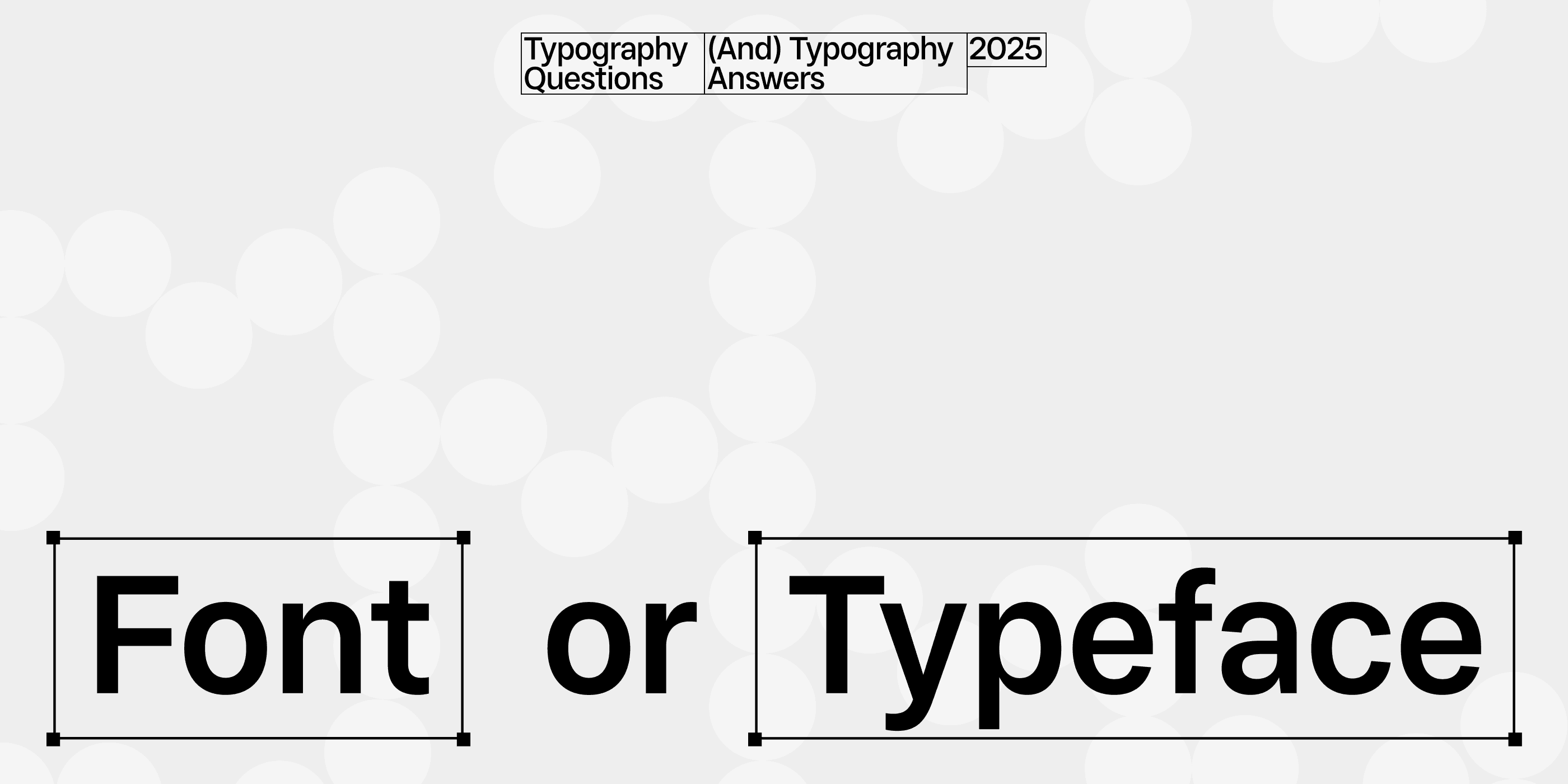
Font vs Typeface
The terms font and typeface are often used interchangeably, even by professionals. In many cases, the confusion doesn’t lead to serious consequences. Most of the time, it’s not a big deal. But in certain situations (think design handoffs, licensing agreements, or technical documentation) knowing the difference between font and typeface matters. In this article we wanted to break down the historical and practical differences between these typographic terms, and explore how they’re used by designers today.
What Is a Typeface?
A typeface is the underlying design behind a set of characters. It establishes a consistent visual language—defining proportions, stroke contrast, shapes, and spacing—that carries across different weights and styles. A single typeface can include many fonts. Each variation in weight, style, or width—like Thin, Medium, Bold, Italic, or Condensed—counts as a separate font, even though they all belong to the same typeface.
Example: In our type collection, Jouter Sans, Oktah Neue, and Rothek are typefaces. A typeface can come in multiple styles and weights, all of which are parts of a unified design system.
Quick tip: think of typeface as the overall design system.
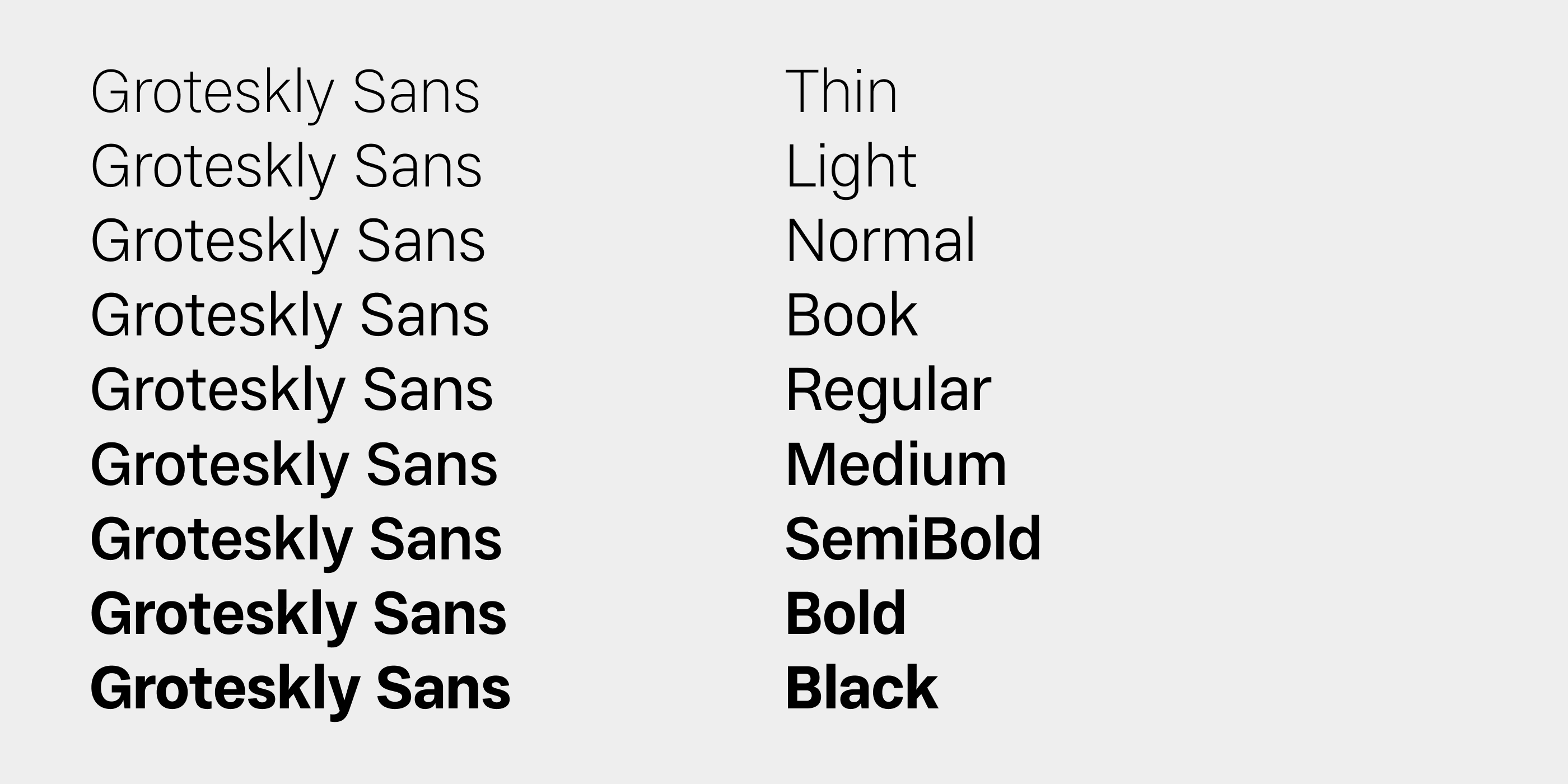
What Is a Font?
A font is a specific weight or style within a typeface (such as Bold Italic or Regular). Font is the tangible file (or an instance) that you can actually install on your computer and use. Nowadays, font almost always comes as a digital file that you can download, embed on a website, or license for commercial use. In other words, it’s the practical, ready-to-go file, made to function in whatever environment you’re working in. Simply speaking, font is the file you use—whether in a mobile app, website, brand system, or a line of code.
Example: When you’re using Jouter Sans Bold Italic, you’re using a font. And if you download a file that is shown on your system as Oktah_Neue_Regular.woff2, that file is also a font.
Quick tip: think of font as a specific style (or instance) of a typeface
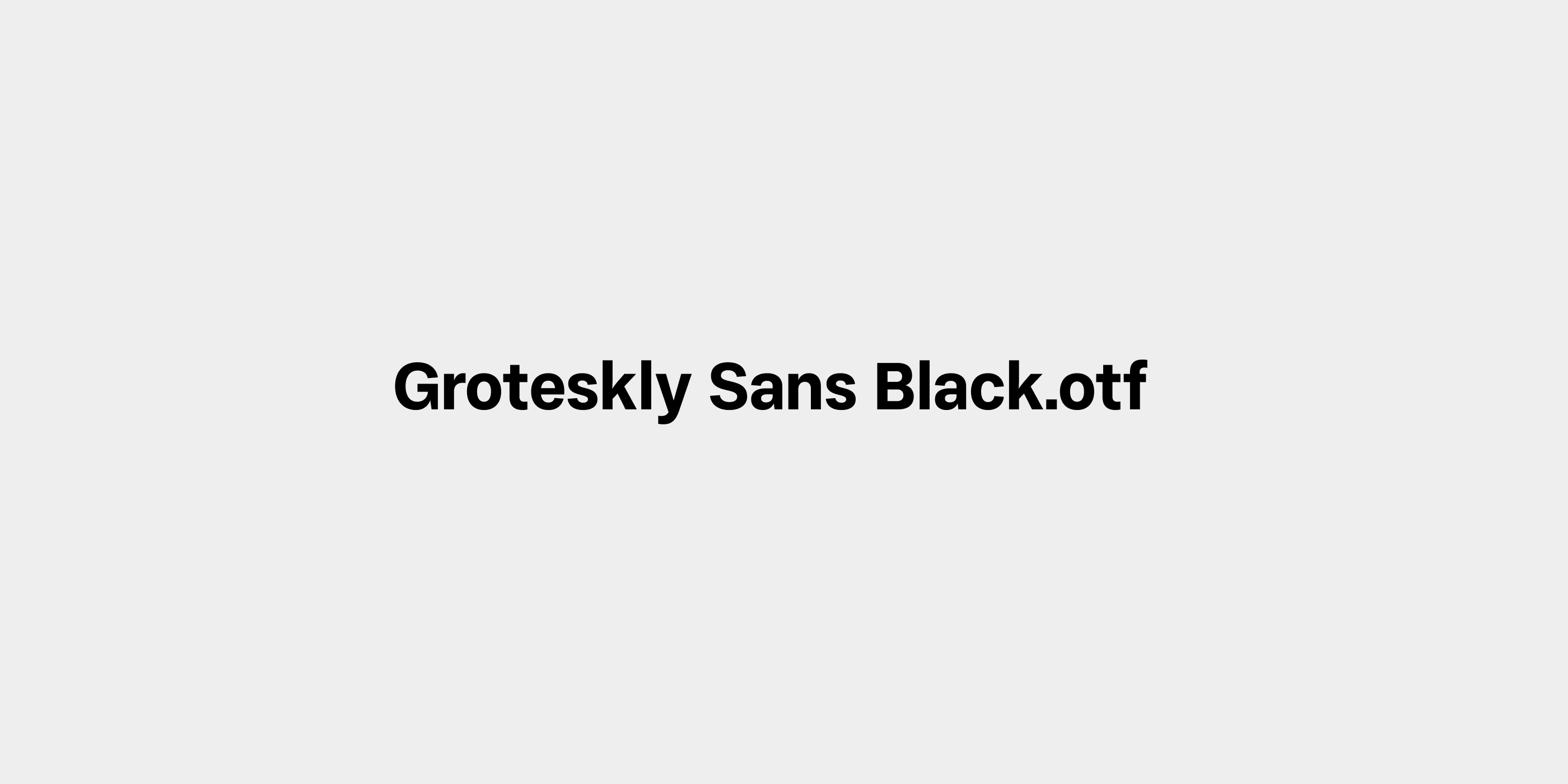
Unpacking the Terminology
The overlap dates back centuries. In the era of metal type, a typeface referred to the overarching design of letterforms (such as Garamond), while a font referred to the specific size and weight of the metal set used to print (e.g. Garamond Italic 12pt). As typography transitioned into the digital space, software interfaces adapted and popularized the term “font” as a catch-all. The “Fonts” dropdown became the standard, even when selecting typefaces. Today, most people—including many designers—use “font” to refer to both the design and the file.
What is a type family?
There’s a third term that often sneaks into the “font vs. typeface” conversation: type family. To begin with, it helps to distinguish between terms type family and typeface. A type family is the full set of fonts that belong to a single typeface—every weight, width, and style that shares the same underlying design. If Jouter Sans is the typeface, then Jouter Sans Light, Regular, Italic, SemiBold, Bold, and so on collectively form the Jouter Sans type family.
In other words, a typeface defines the design concept, each font is one concrete style within that concept, and the type family is the organized collection of all those fonts under one roof.
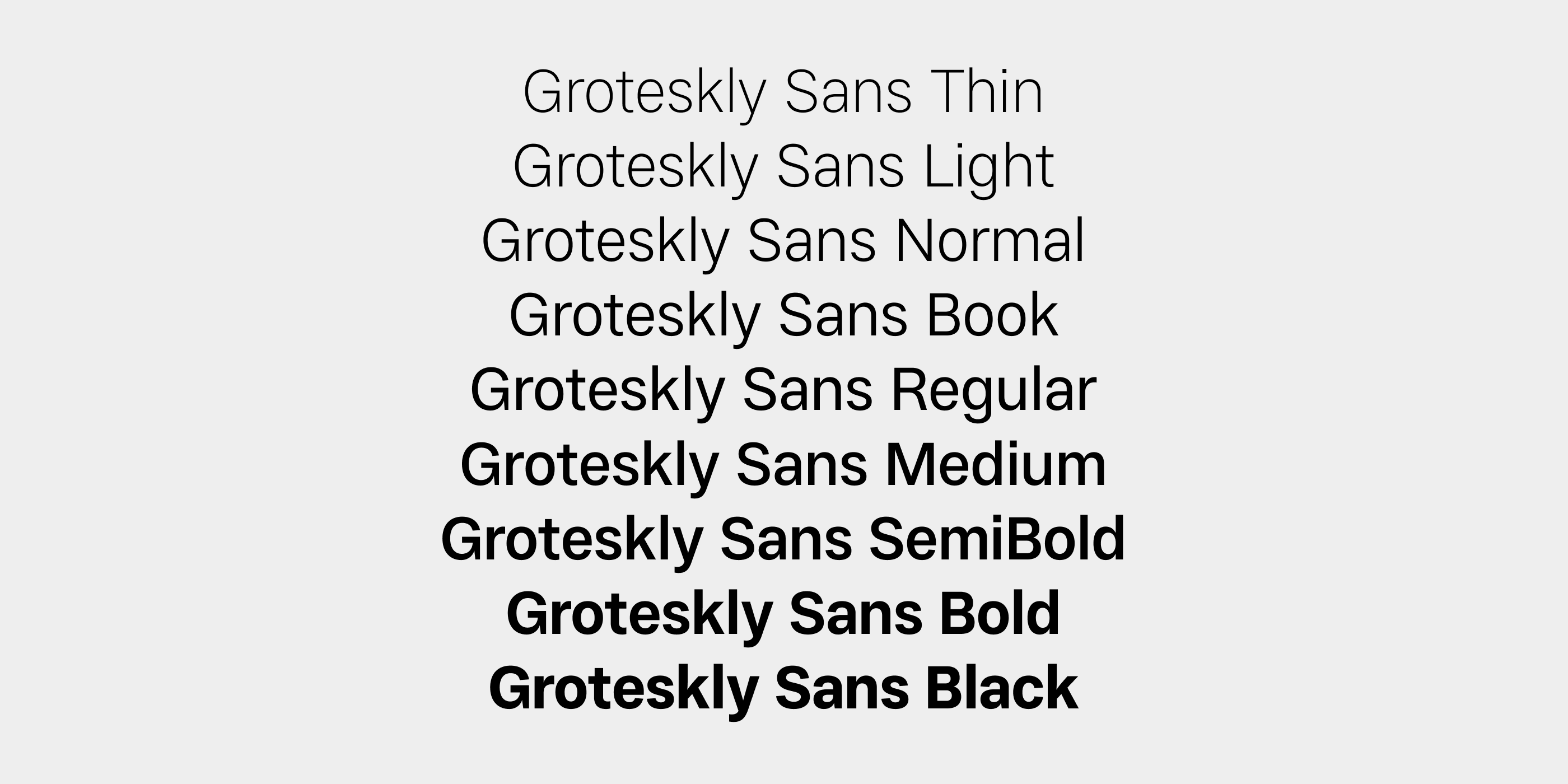
Common Misconceptions
“Fonts are digital, typefaces are for print.”
Incorrect. Both terms apply across digital and print media.
“Variable fonts are new typefaces.”
Not quite! A variable font is still a font—it’s just one file that includes multiple instances, allowing continuous control over axes like weight or width.
“It doesn’t matter which term you use.”
In casual speech, perhaps. But in technical contexts or legal agreements, it often does.
Final Thoughts
Typography terminology is always in flux, shaped by technology, design trends, and cultural context. If you work with type or are just drawn to it, grasping these terms isn’t just about getting the words right. It’s a way of connecting more deeply with your craft, its roots, and the way of thinking that continues to push typography forward. As a recap, here is a quick breakdowns and terms used in this article:
Typeface: The overall design system of a family of letterforms
Font: A specific file or instance of a typeface in a particular weight/style
Type Family: A collection of fonts sharing a design (the typeface)
Variable Font: A font file that includes multiple styles along adjustable axes